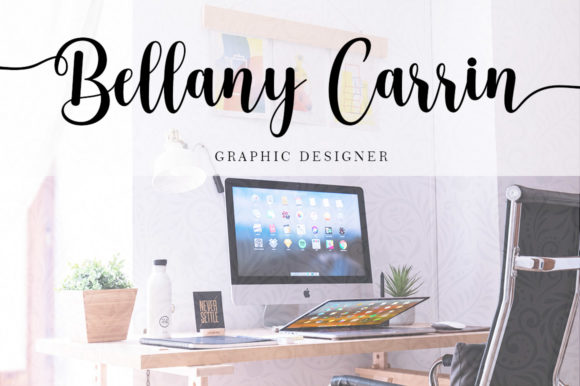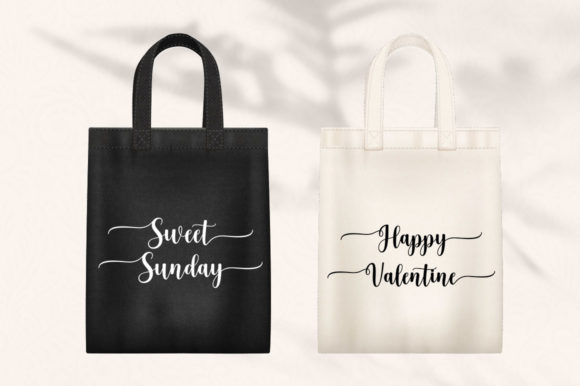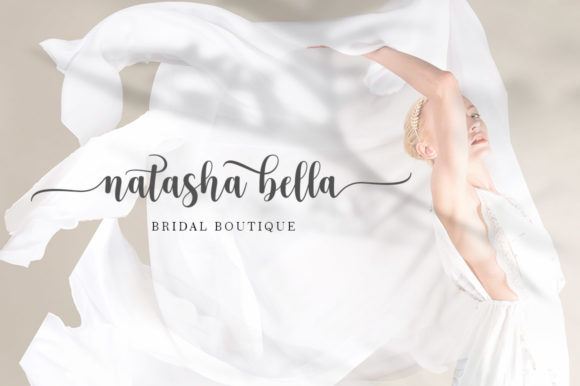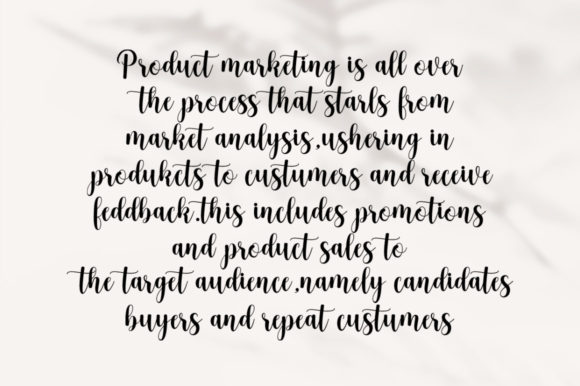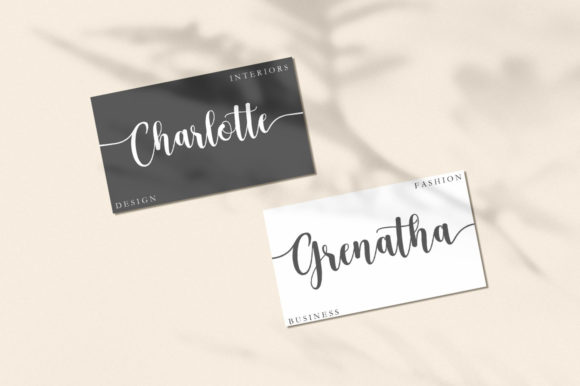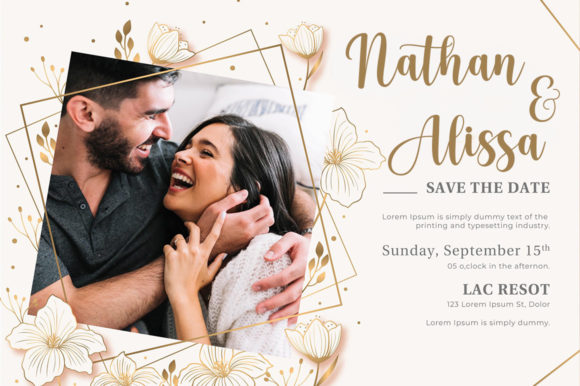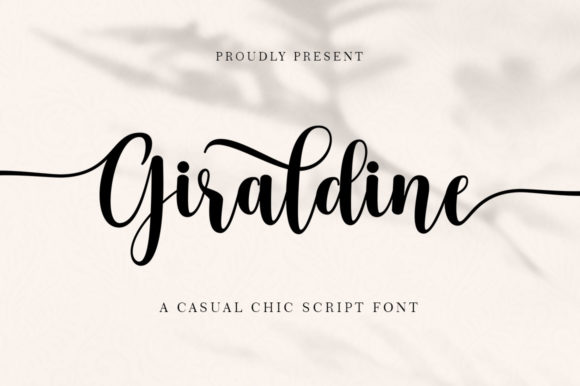
Giraldine Font: Add a Touch of Romance to Your Designs
Are you looking for a font that can add a romantic feel to your designs? Look no further than Giraldine Font. This dazzling handwritten font is perfect for a wide range of applications, from greeting cards to headlines, and is sure to make your project stand out. In this article, we’ll take a closer look at Giraldine Font and explore its features, benefits, and uses.
What is Giraldine Font?
Giraldine Font is a versatile script font that is designed to add a touch of elegance and romance to your designs. With its beautiful, flowing lines and intricate details, this font is perfect for creating stunning visual content. Whether you’re designing a greeting card, a poster, or a website, Giraldine Font is sure to impress.
Key Features of Giraldine Font
So, what makes Giraldine Font so special? Here are some of its key features:
• PUA Encoded: Giraldine Font is PUA (Private Use Area) encoded, which means that you can access all of the beautiful glyphs and swashes with ease. This makes it easy to create stunning designs without having to worry about complicated font editing.
• Handwritten Style: Giraldine Font has a beautiful, handwritten style that adds a touch of personality to your designs. The font is designed to look like it was written with a pen, giving it a warm and inviting feel.
• Versatile: Giraldine Font is incredibly versatile, making it perfect for a wide range of applications. Whether you’re designing a greeting card, a poster, or a website, this font is sure to work beautifully.
• Romantic Feel: Giraldine Font has a romantic feel that makes it perfect for designs that require a touch of elegance and sophistication. Whether you’re creating a wedding invitation or a Valentine’s Day card, this font is sure to impress.
Uses of Giraldine Font
So, what can you use Giraldine Font for? The possibilities are endless! Here are some ideas to get you started:
• Greeting Cards: Giraldine Font is perfect for creating stunning greeting cards for special occasions like birthdays, weddings, and holidays.
• Headlines: Add a touch of elegance to your headlines with Giraldine Font. This font is perfect for creating eye-catching titles for posters, flyers, and websites.
• Wedding Invitations: Giraldine Font is a popular choice for wedding invitations, thanks to its romantic feel and elegant style.
• Branding: Use Giraldine Font to create a unique and memorable brand identity for your business. This font is perfect for creating logos, business cards, and other marketing materials.
Tips for Using Giraldine Font
Here are some tips for getting the most out of Giraldine Font:
• Use it sparingly: While Giraldine Font is beautiful, it can be overwhelming if used too much. Use it sparingly to create a focal point in your design.
• Pair it with other fonts: Giraldine Font looks great when paired with other fonts. Try pairing it with a clean sans-serif font to create a beautiful contrast.
• Experiment with colors: Giraldine Font looks great in a variety of colors. Experiment with different colors to find the one that works best for your design.
Giraldine Font is a stunning handwritten font that is perfect for adding a touch of romance to your designs. With its beautiful, flowing lines and intricate details, this font is sure to impress. Whether you’re designing a greeting card, a poster, or a website, Giraldine Font is a great choice. So why not give it a try and see what amazing designs you can create?